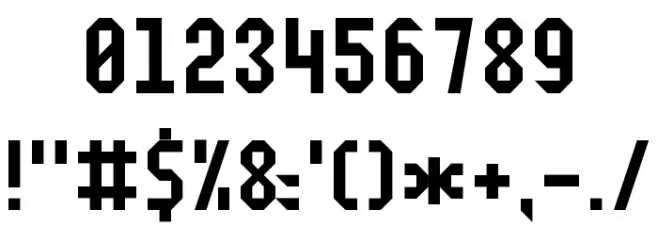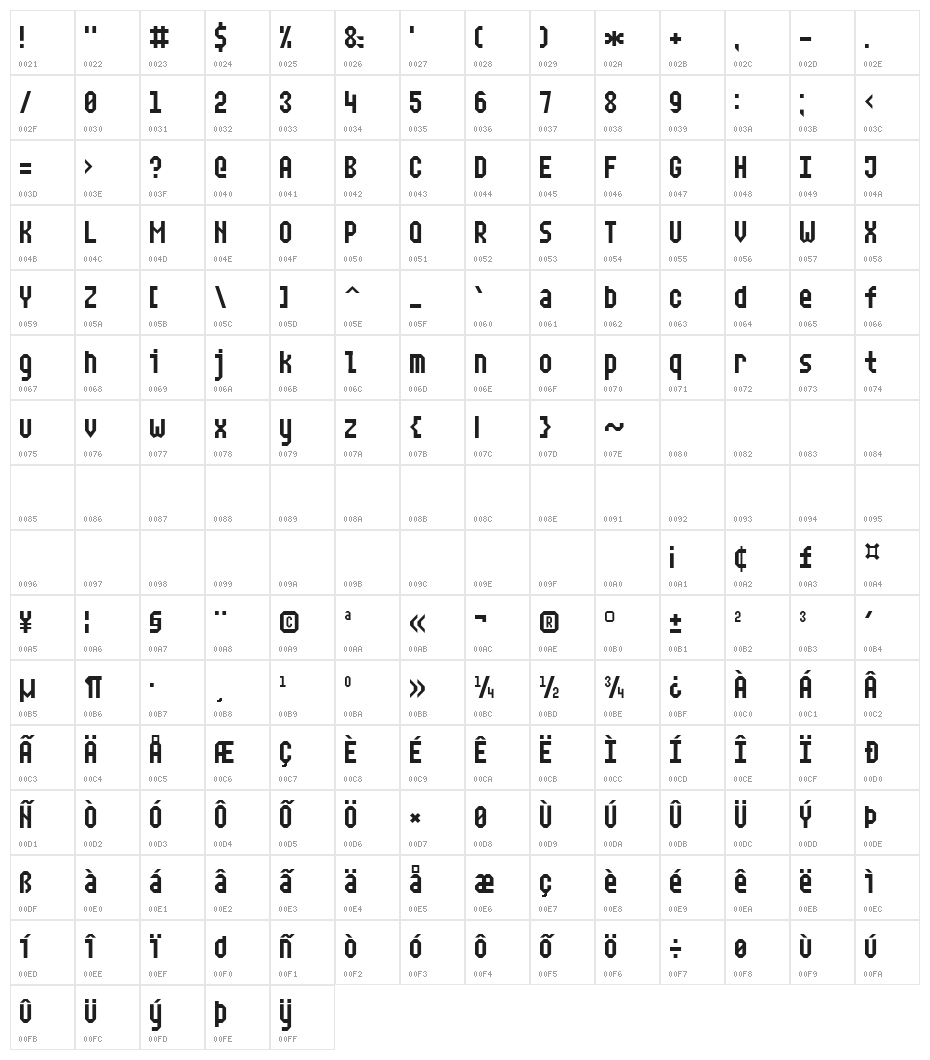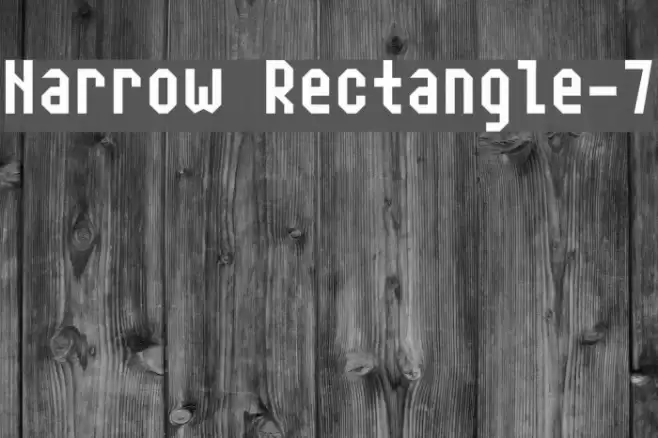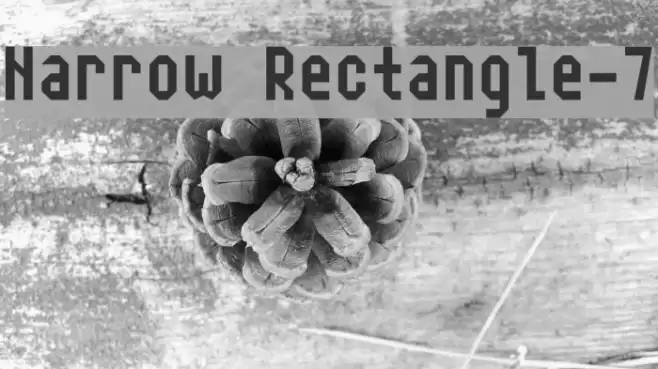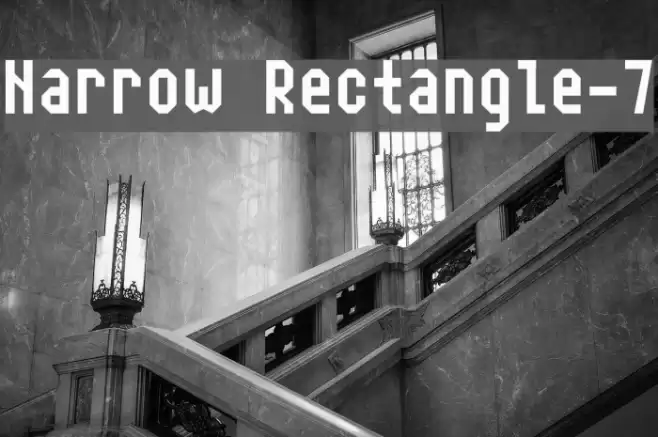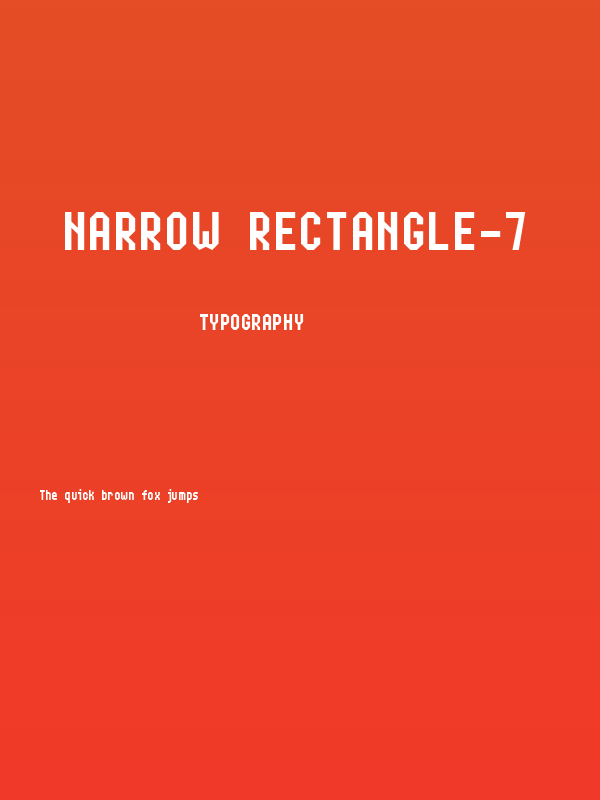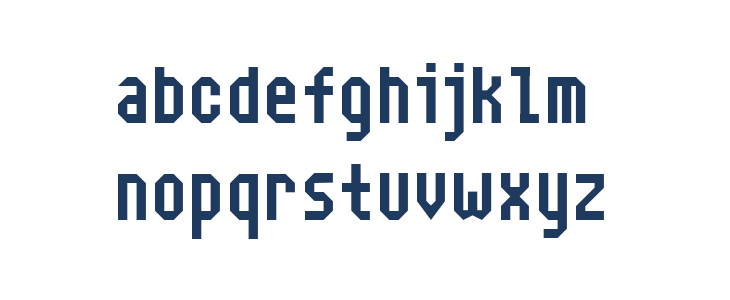
Narrow Rectangle-7 Font
Narrow Rectangle-7 Description
This font features a bold, geometric design with a distinctly modern and industrial feel. The characters are constructed with straight lines and sharp angles, giving them a blocky, robust appearance. The uppercase and lowercase letters maintain a consistent height, creating a uniform look across the typeface. The numerals and special characters follow the same design principles, ensuring cohesion throughout. The font's structure is reminiscent of digital or pixelated styles, making it suitable for tech-related themes. Its strong presence and clear readability make it ideal for impactful headlines and titles.